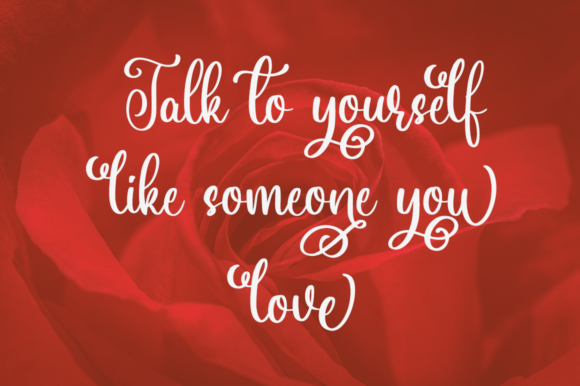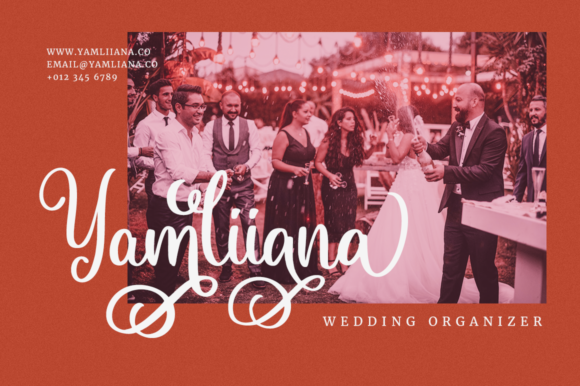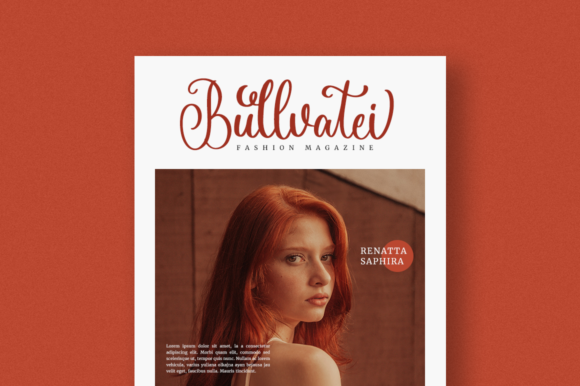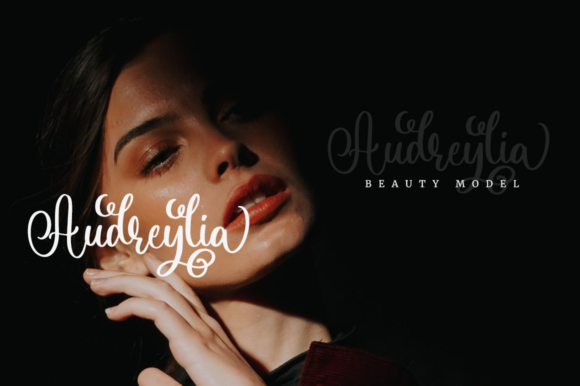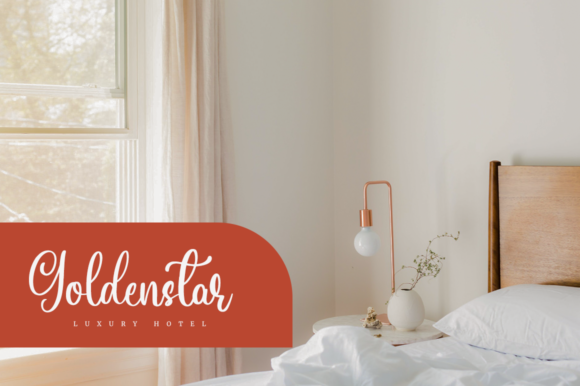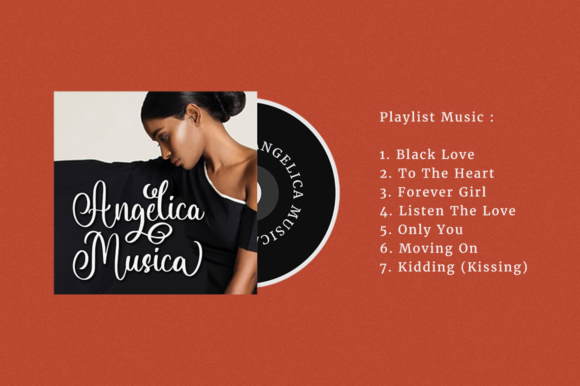
Discover the Elegance of Genotesia Font: A Timeless Classic for Your Design Projects
In the world of typography, few fonts manage to strike the perfect balance between elegance and simplicity. Genotesia Font is one such exceptional typeface that embodies the essence of classic calligraphy, distilled into a clean and versatile design. This beautiful font is not just a stylistic choice; it’s an upgrade to your design projects, offering a sophisticated look that’s both timeless and adaptable.
The Inspiration Behind Genotesia
Genotesia draws its inspiration from the traditional calligraphy of the past, bringing a sense of history and classic beauty to modern design projects. Unlike many contemporary fonts that lean towards minimalism or avant-garde styles, Genotesia finds its roots in the elegance of classic calligraphy. This connection to timeless art forms makes Genotesia not just a font, but a statement of sophistication and refinement.
Balanced and Varied: The Unique Appeal of Genotesia
One of the standout features of Genotesia Font is its balanced design. It’s not too thin, which can often lead to a fragile or less readable appearance, nor is it too thick, which can make text seem heavy-handed or overpowering. This balance ensures that Genotesia remains legible and aesthetically pleasing across various applications, from digital screens to print materials.
Variety is another key aspect of Genotesia’s appeal. The font comes with a range of weights and possibly even stylistic alternates, allowing designers to play with the text’s appearance. This versatility means you can use Genotesia for everything from elegant headings and titles to more substantial bodies of text, all while maintaining a cohesive and sophisticated visual identity.
Enhancing Your Projects with Genotesia
Whether you’re a professional designer working on a client’s branding, a crafty DIY enthusiast creating your own stationery, or a digital artist looking for the perfect typography for your next project, Genotesia Font can elevate your work. Its classic yet modern appeal makes it suitable for a wide range of applications:
- Branding and Logotypes: Use Genotesia to create a memorable and elegant brand identity.
- Invitations and Stationery: Add a touch of sophistication to your wedding invitations, greeting cards, and personal stationery.
- Web Design: Genotesia’s readability and aesthetic make it an excellent choice for website headers, blog posts, and digital marketing materials.
- Packaging: Stand out on store shelves with elegant typography on product packaging.
Why Choose Genotesia?
Choosing Genotesia Font for your projects comes with several benefits:
- Timeless Appeal: Genotesia’s classic inspiration ensures it won’t go out of style anytime soon.
- Versatility: Suitable for both digital and print projects, across various themes and industries.
- Legibility: Its balanced design ensures your message is conveyed clearly and effectively.
- Elegance: Adds a level of sophistication and professionalism to any project.
Genotesia Font offers a unique opportunity to infuse your design projects with a sense of elegance and timelessness. Its balanced and varied design makes it a versatile tool for designers and crafters alike, capable of enhancing everything from branding and web design to personal stationery and packaging. By choosing Genotesia, you’re not just selecting a font; you’re embracing a design philosophy that values beauty, readability, and the enduring appeal of classic calligraphy.
So, if you’re looking to elevate your designs with a touch of sophistication and a nod to timeless elegance, Genotesia Font is an excellent choice. Explore its possibilities and discover how this beautiful typeface can transform your projects.